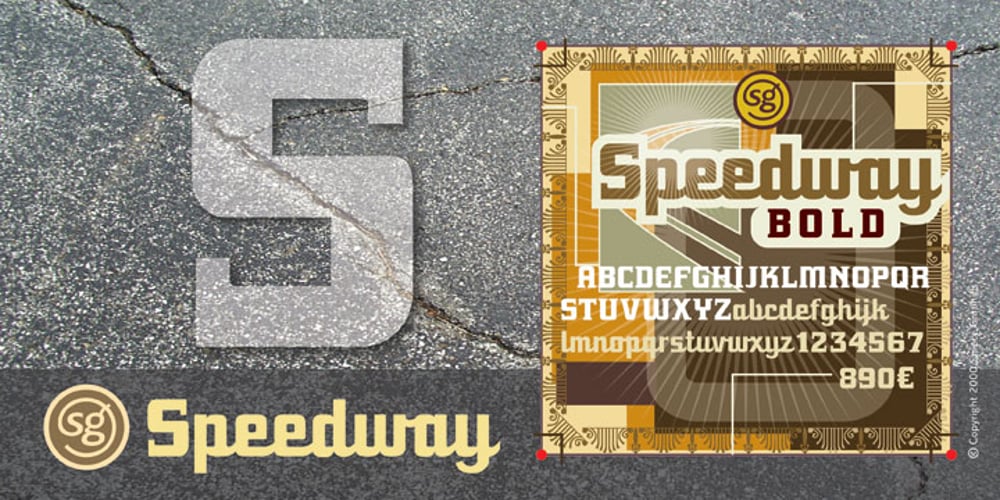
Speedway SG
Speedway SG font
Speedway SG Font Family was designed by Jim Spiece and published by Spiece Graphics. Speedway SG contains 1 styles and family package options. Motoring at top speed calls for your own high-performance machine and a special racetrack font to run it on. Speedway was built with blacktop smooth caps to ease you through those short and dangerous curves. And its sleek, aerodynamic lowercase linking makes getting your speedy cruiser to the checkered flag a breeze. Developed in typeface alley for discriminating designers. And for the more adventurous, Speedway SG is now available in the OpenType Std format. Some new characters have been added to this OpenType version. Advanced features currently work in Adobe Creative Suite InDesign, Creative Suite Illustrator, and Quark XPress 7. Check for OpenType advanced feature support in other applications as it gradually becomes available with upgrades.